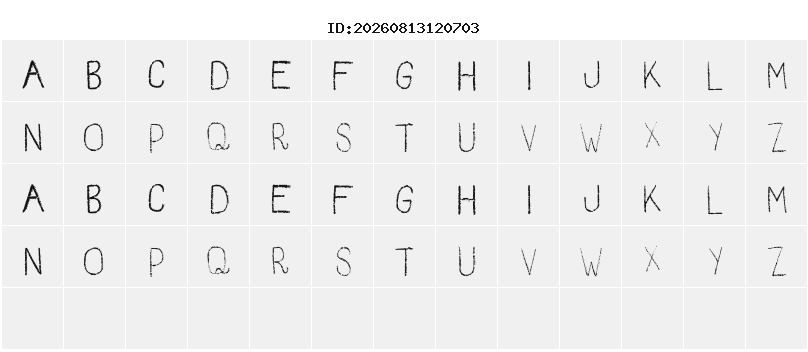
Red Fish Preview
• Font Name: Red Fish
• Full Font Name: RedFish-Regular
• Designer: i
About Red Fish.otf
Red Fish.otf is a modern, elegant sans-serif font designed for ultimate readability and visual harmony. Perfect for branding, headlines, web design, and print materials.